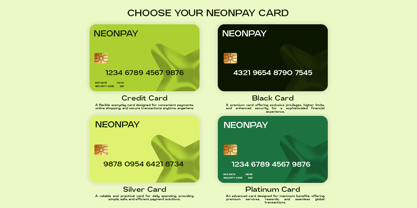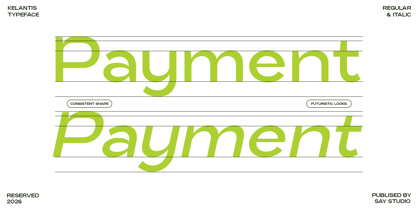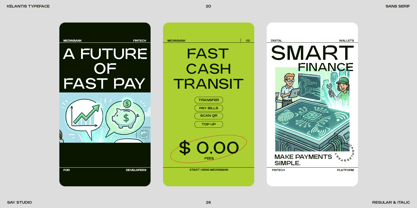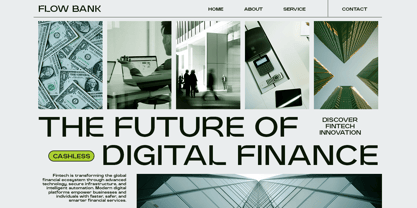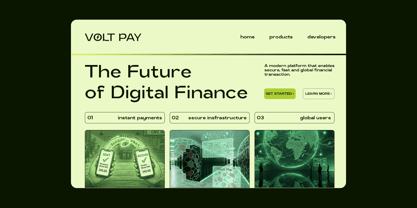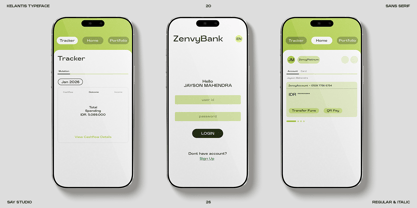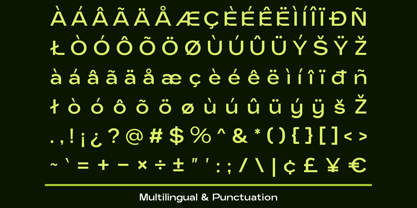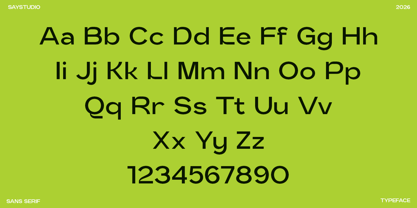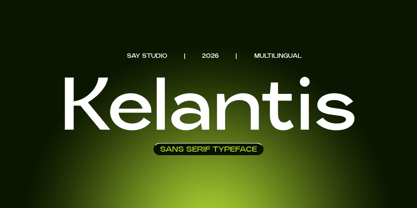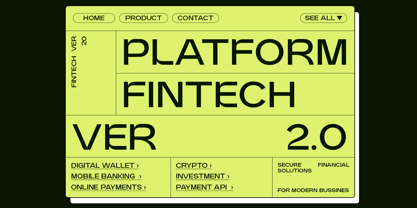
Kelantis
by Say Studio
The Kelantis Font Family was designed by Mussyayin and published by Say Studio. Kelantis contains 2 styles and family package options. More about this family
Kelantis is a modern sans serif typeface designed for clarity, simplicity, and contemporary visual impact. With its clean lines and balanced proportions, this font offers a sleek and professional appearance that integrates seamlessly into today’s digital and branding environments. Its minimal structure ensures excellent readability, making it suitable for both large headlines and smaller text applications. Ideal for branding, UI/UX design, tech startups, websites, logos, and corporate identity, Kelantis serves as a versatile typographic solution that adapts effortlessly to various design needs. The modern aesthetic imparts a fresh, forward-thinking look to your projects while maintaining a strong and reliable visual presence. Whether you're developing a digital product, crafting a modern brand identity, or designing clean editorial layouts, Kelantis provides the flexibility and style necessary to elevate your work. It’s an excellent choice for designers who prioritize simplicity, functionality, and contemporary design trends.